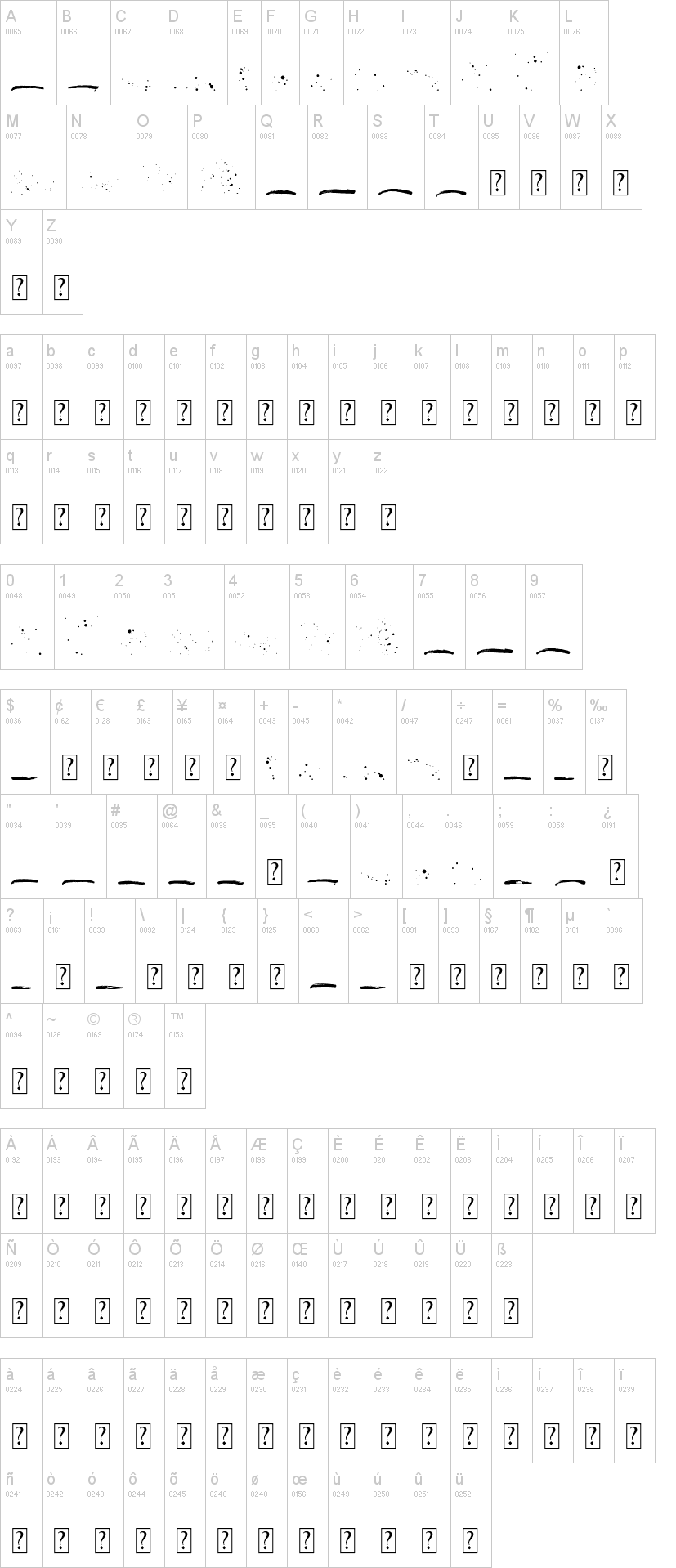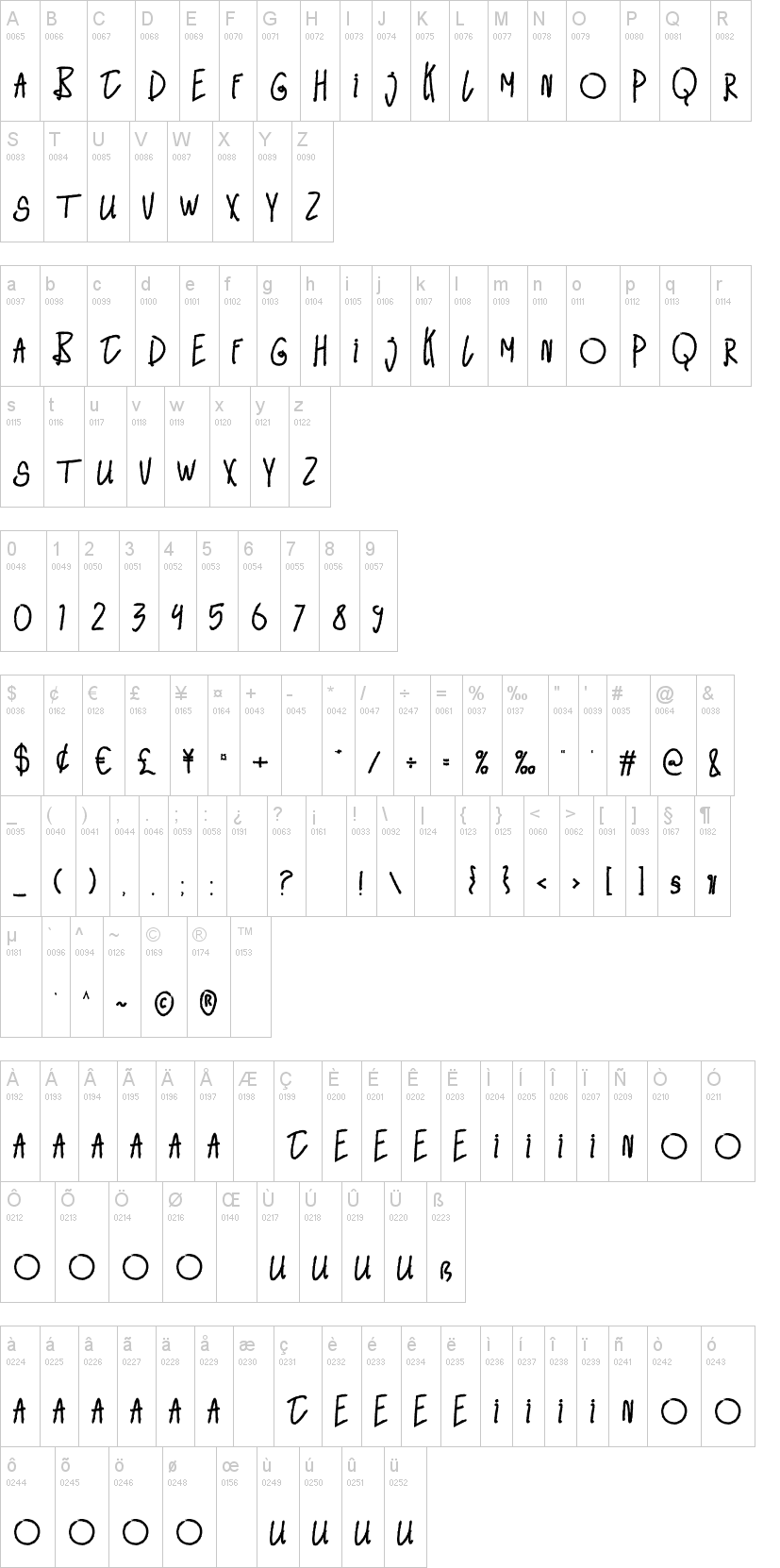
Beranak Swashes.otfNote of the authorIntroducing Beranak Font, a style of handwriting with a distinctive style. This beautiful brush font offers your personal touch to your latest art project with an elegant, classy and modern look.
Beranak Font offers beautiful typography that will be perfect for projects such as logos & branding, invitations, stationery, social media posts, advertisements, product packaging, product design, labels, photography, watermarks, special events or anything else that need handwriting.